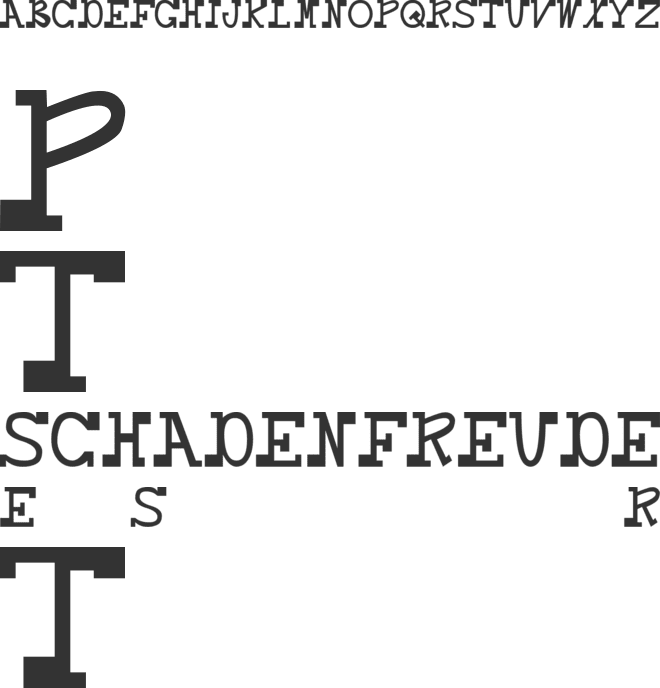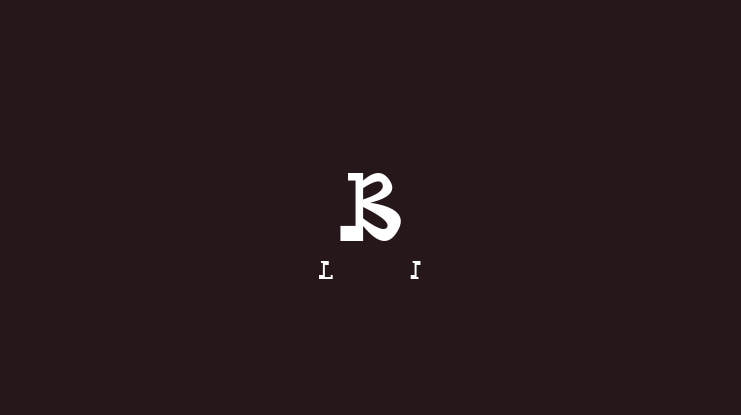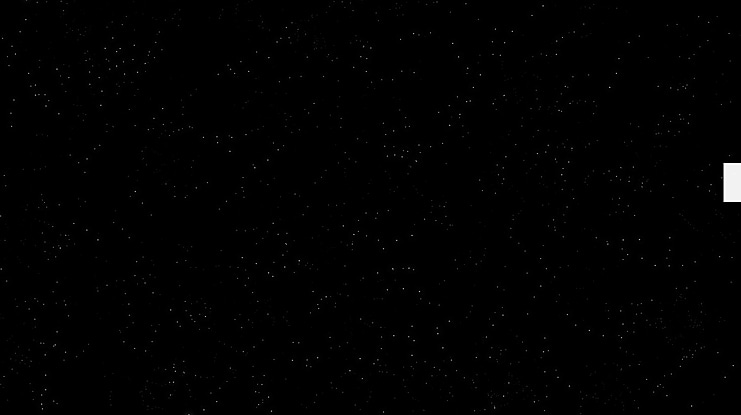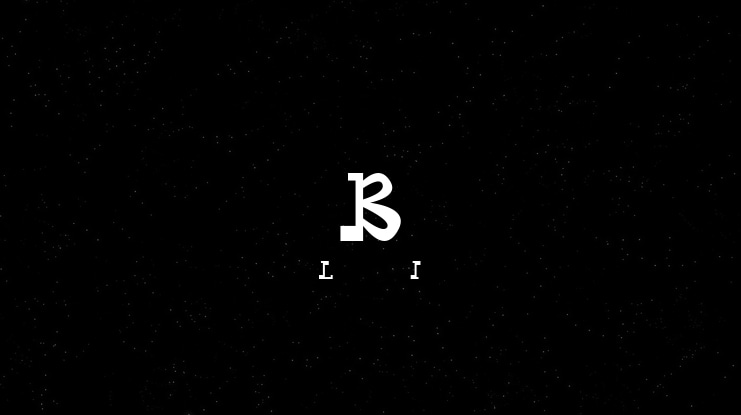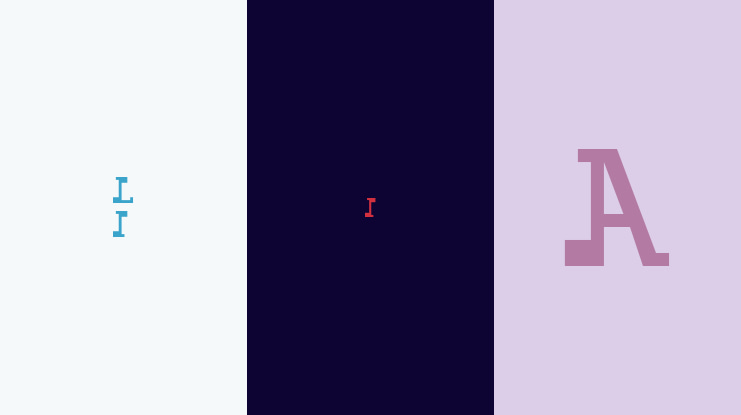
daBoss Font
daBoss justCAPS Ver 1.000 𑁋 Modified at May 29, 2003
... is a(nother) *dibujado* font ... contains CAPS only; check back soon for a full(er) character version ... was made with High-Logic's Font Creator Program 4.0 (can somebody tell me how to merge glyphs? it isn't very evident ...) ... peace!
This is daBoss, a *dibujado* font.